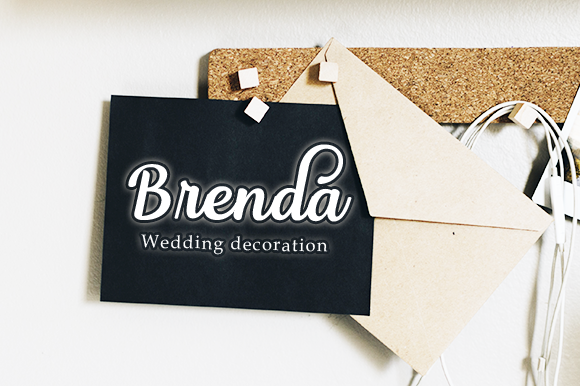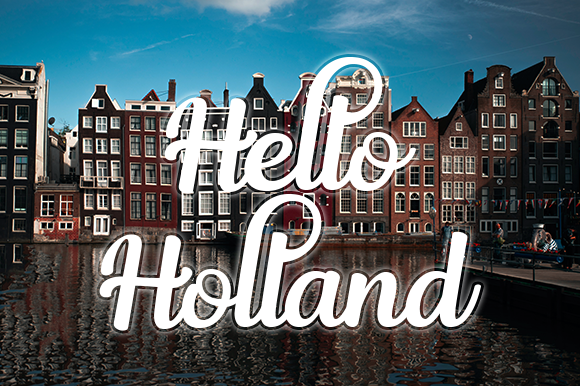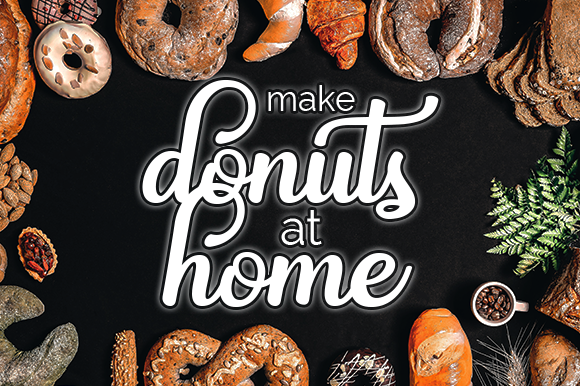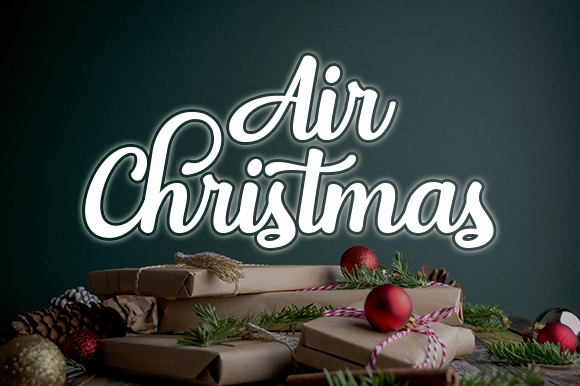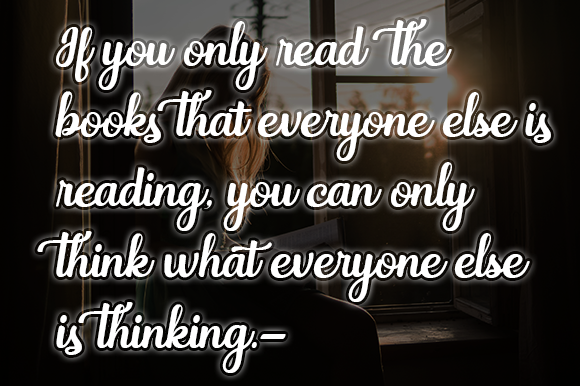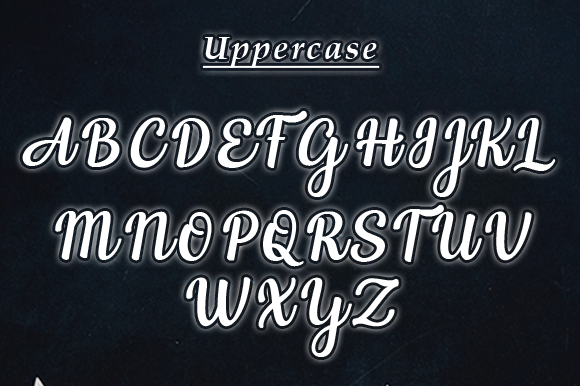
Introduction to School Break Font
Remember the excitement of brainstorming ideas for your creative project, only to be halted by the perfect font to bring it all together? For many designers, finding that elusive perfect font can be a make-or-break moment. But what if you stumbled upon a font that not only elevated your design but also added a touch of elegance and sophistication?
Enter the School Break Font, a stunning handwritten font that’s about to revolutionize the way you approach your design projects. With its high-quality aesthetic and versatility, this font is perfect for a wide range of applications, from wedding invitations to logos and business cards.
As a valuable design resource, the School Break Font offers a transparent background, making it easy to customize and combine with other design elements. And the best part? It’s PUA encoded, allowing you to access all of its beautiful glyphs and swashes with ease. Whether you’re a seasoned designer or just starting out, this font is sure to be a game-changer for your next creative project.
Key Features of School Break Font
- High-quality design: The School Break Font is a carefully crafted design resource that ensures a professional and polished look for any creative project.
- Transparent background: The School Break Font features a transparent background, allowing for easy integration with various design elements and backgrounds.
- Size: The font size is scalable, making it suitable for various design applications, from small text to large headings.
- Resolution: The font is optimized for high-resolution displays, ensuring crisp and clear text even at large sizes.
- Unique characteristics: The School Break Font features a unique and playful design, making it an excellent choice for creative projects that require a touch of whimsy and personality.
Honest Review: School Break Font
As a designer, I’m always on the lookout for high-quality design resources to elevate my creative projects. Recently, I stumbled upon the School Break Font, and I’m excited to share my honest review with you.
Here’s what I love about the School Break Font:
- ✨ Its playful and modern aesthetic makes it perfect for a variety of design projects, from social media graphics to promotional materials.
- ✨ The font is incredibly versatile, with a range of styles and weights to choose from, allowing me to experiment with different looks and feels.
- ✨ The transparent background makes it easy to layer and customize, giving me more control over the design process.
- ⚠️ The font may not be suitable for formal or professional projects, as its playful nature may come across as unprofessional.
- ⚠️ Some of the styles and weights may not be as polished as I’d like, but overall, the font is still a great addition to my design arsenal.
The School Break Font is a high-quality, free download design resource ideal for creating engaging and creative projects. Its transparent background makes it perfect for overlaying on images or using as a standalone design element.
Experiment with different font sizes and colors to create visually appealing designs. Use the font in conjunction with other design elements, such as images and graphics, to add depth and interest to your projects.
Common Use Cases for School Break Font
The School Break Font is perfect for creating social media graphics, promotional materials, and educational resources. Its playful and fun design makes it ideal for projects targeting a younger audience.